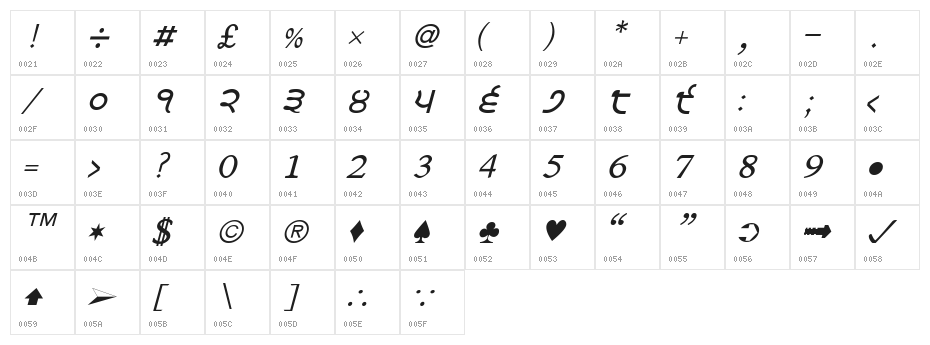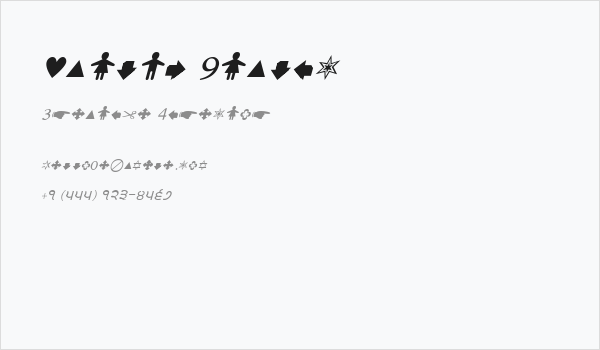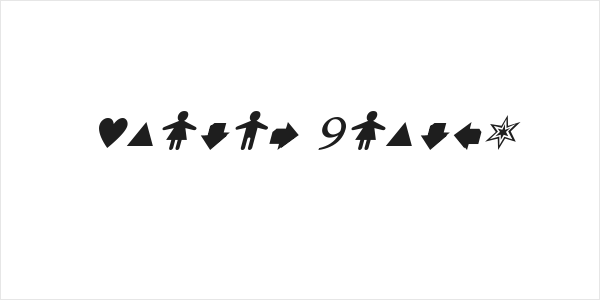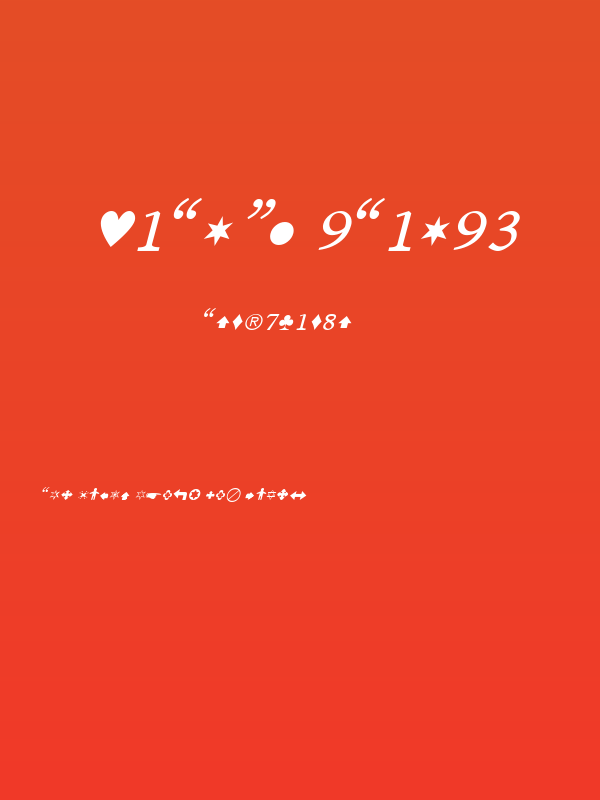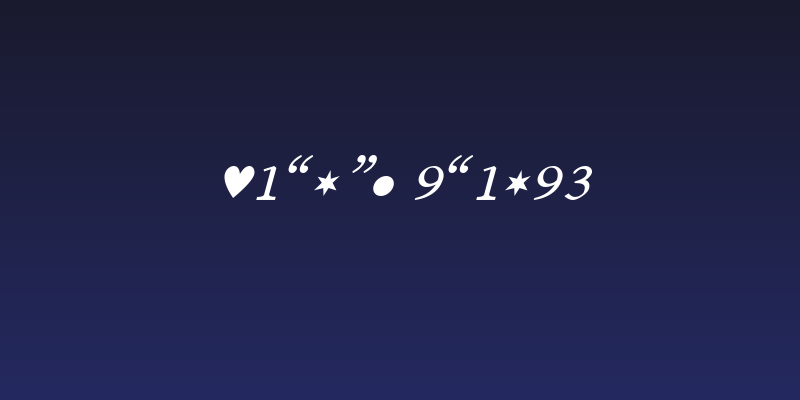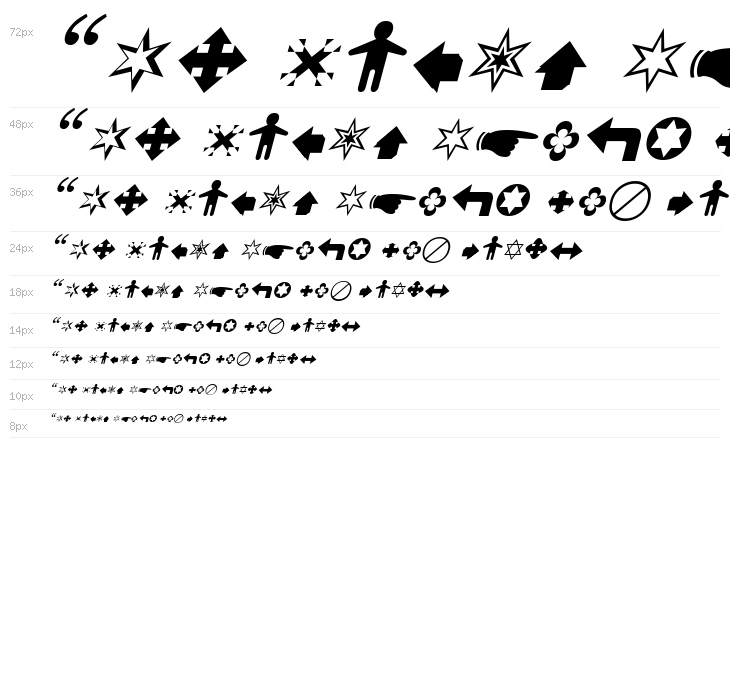
Satluj Italic Font
Satluj Italic Description
This font features a dynamic and flowing italic style, characterized by its elegant curves and slanted orientation. The numerals are distinct with a slight forward tilt, adding a sense of motion and sophistication. Special characters and symbols are well-integrated, maintaining the font's cohesive aesthetic. The overall design is modern yet retains a classic touch, making it versatile for various applications. The font's italic nature enhances its readability and adds a stylish flair to any text.